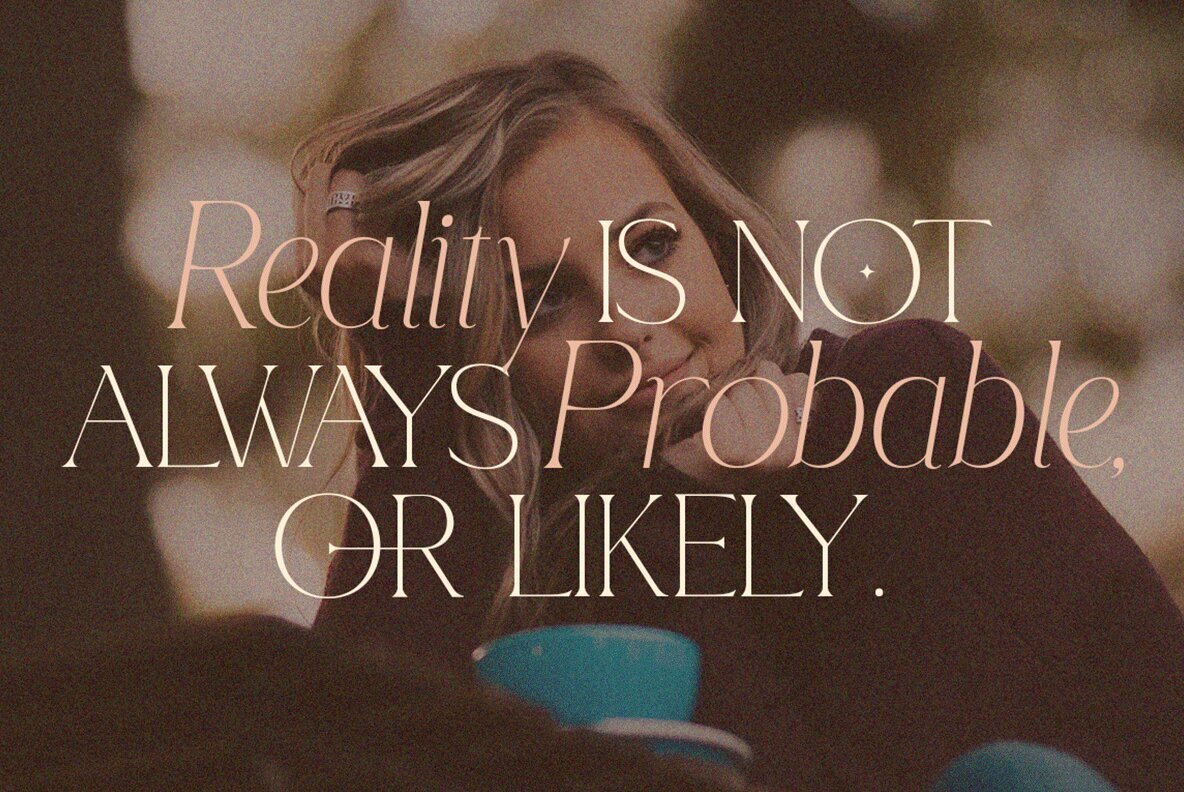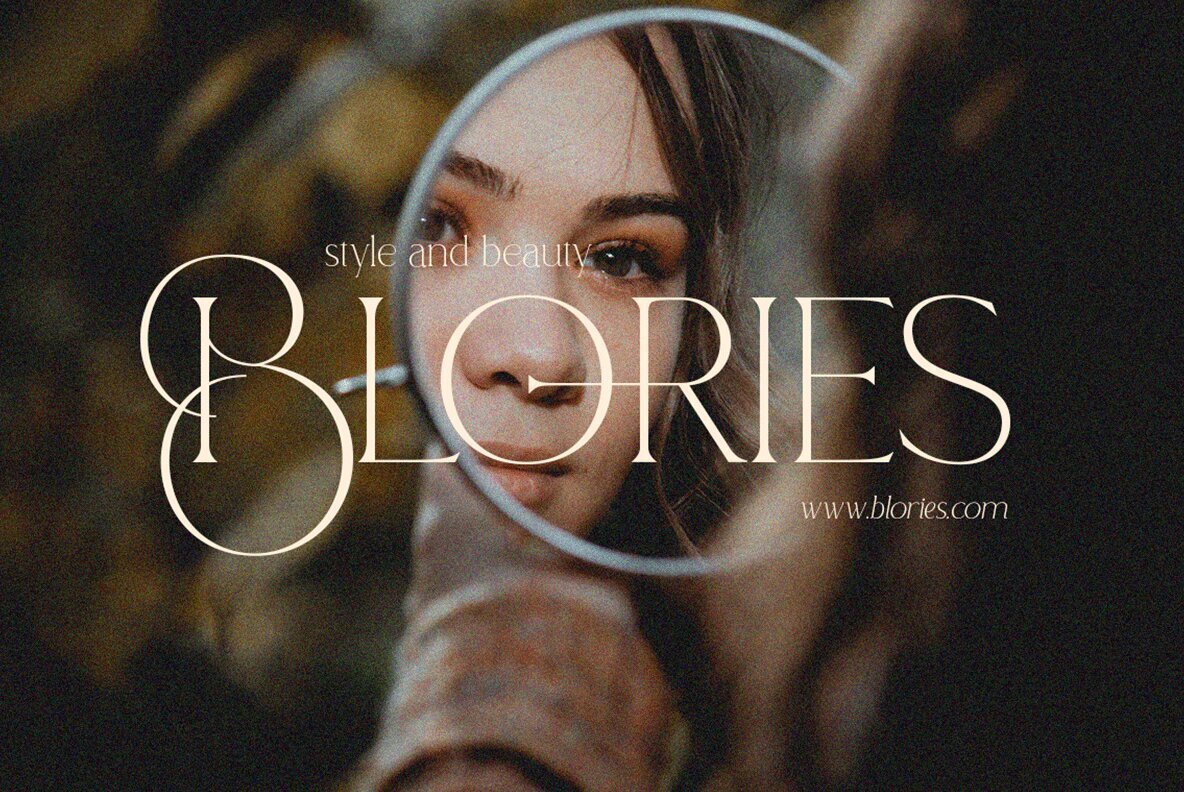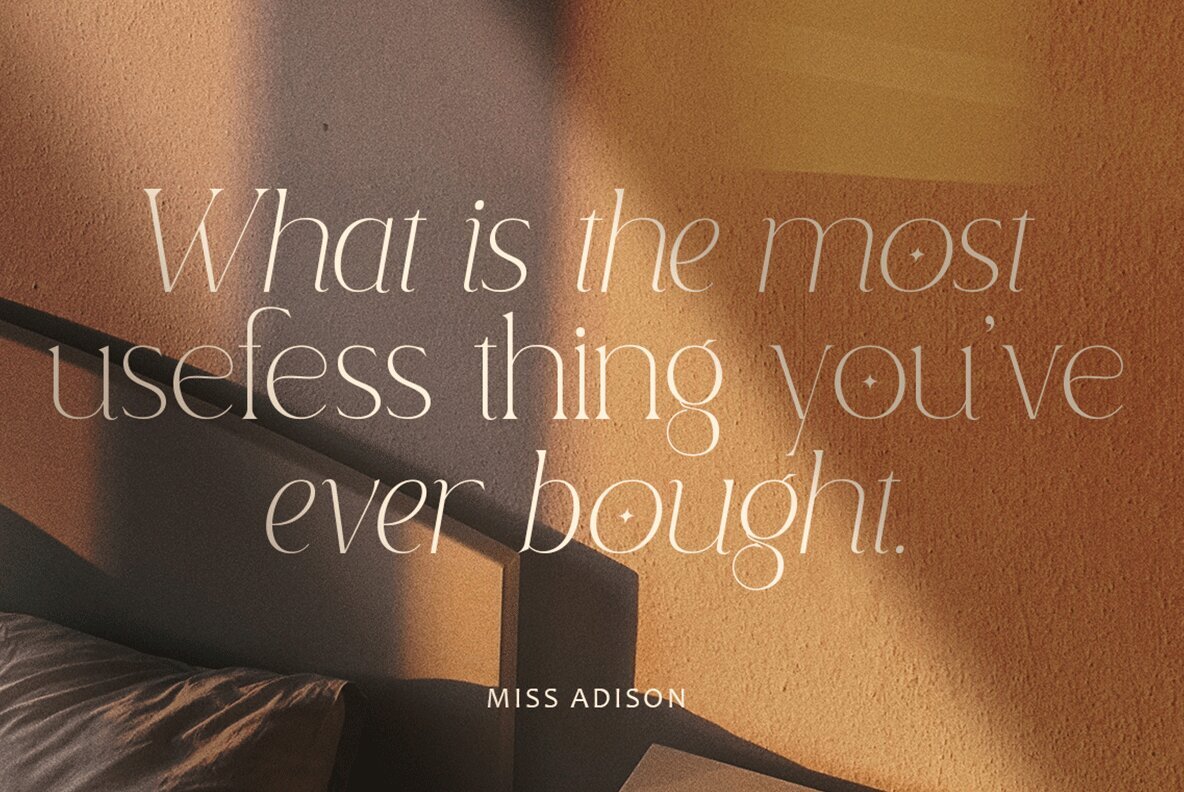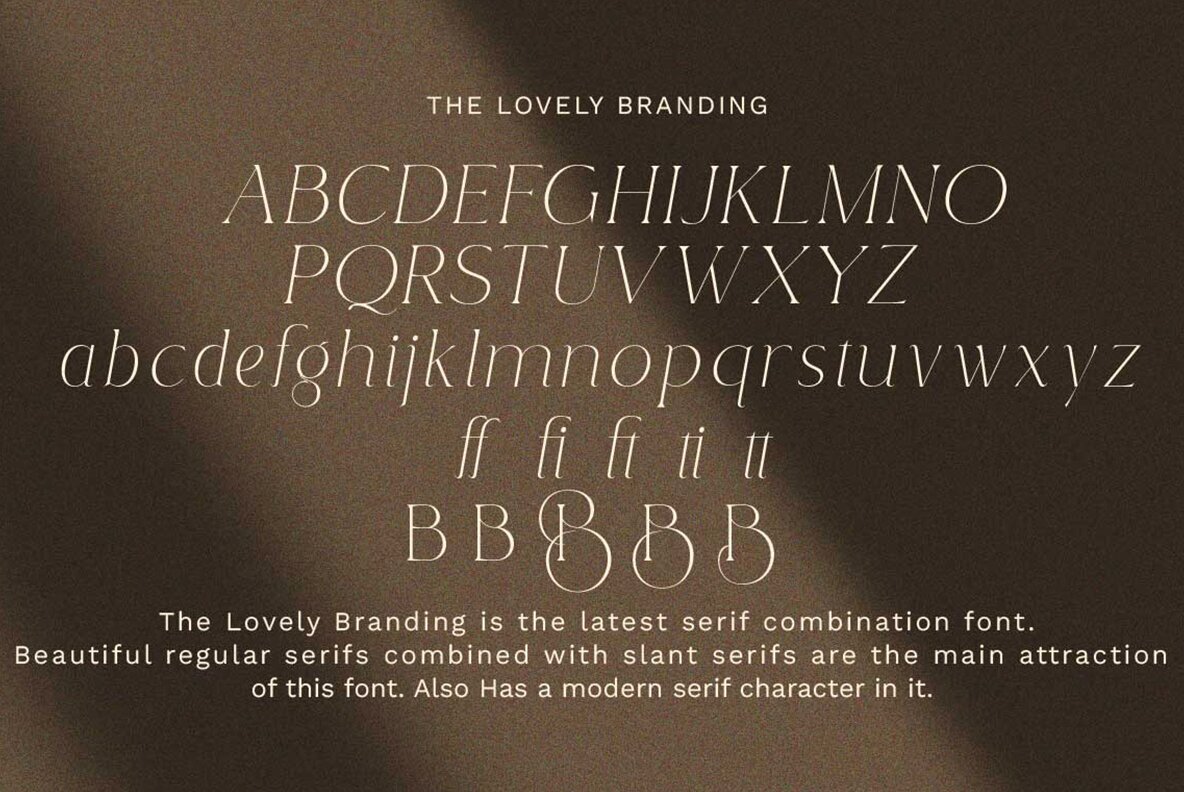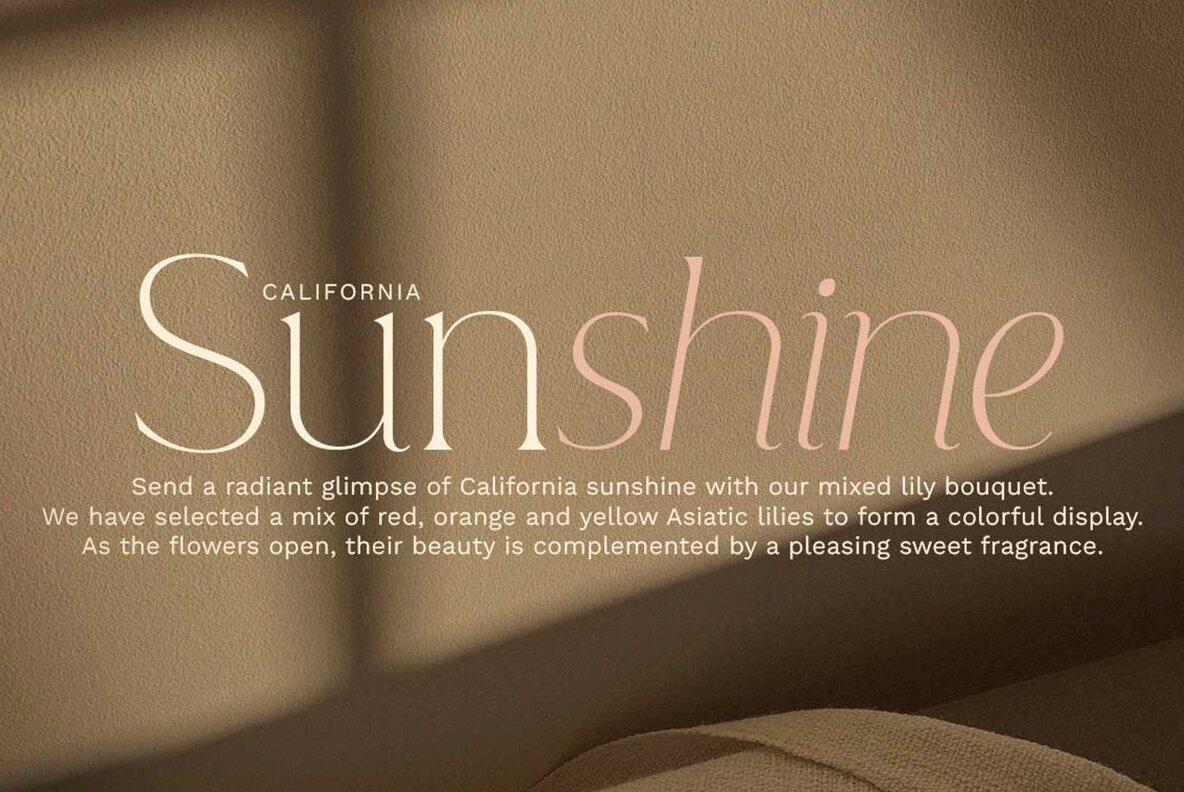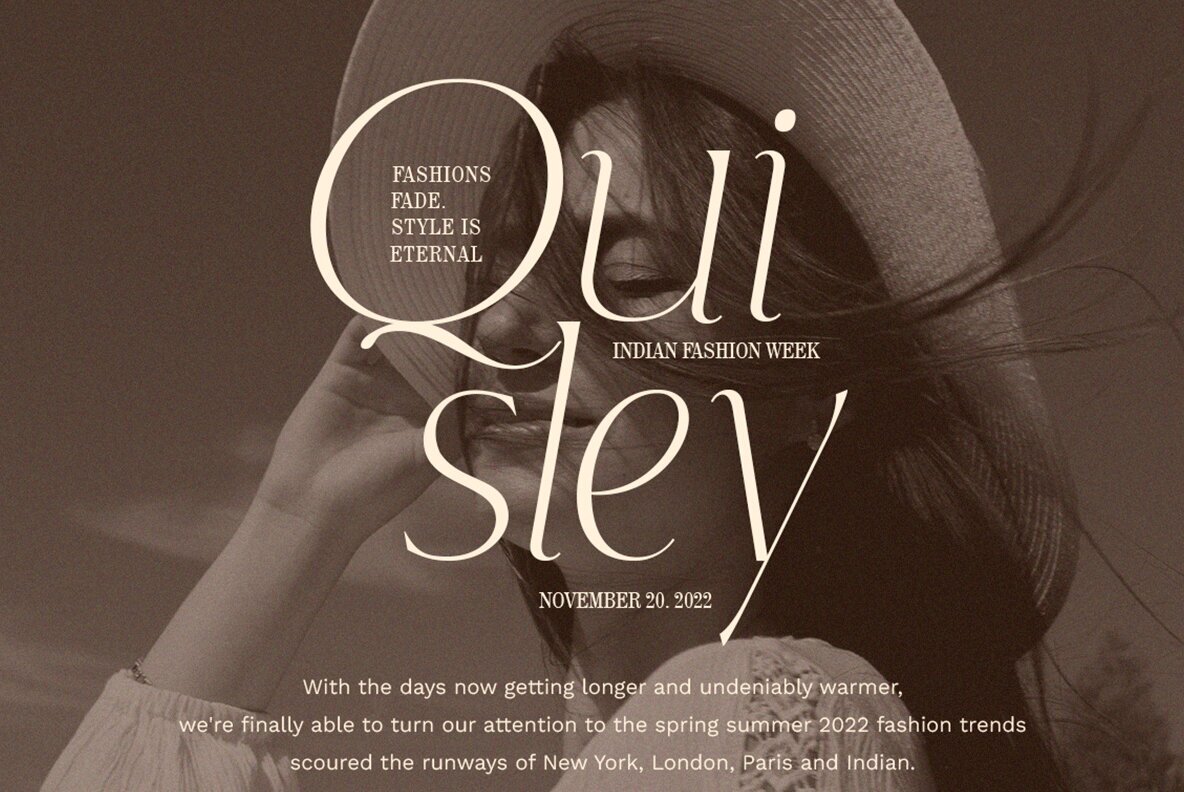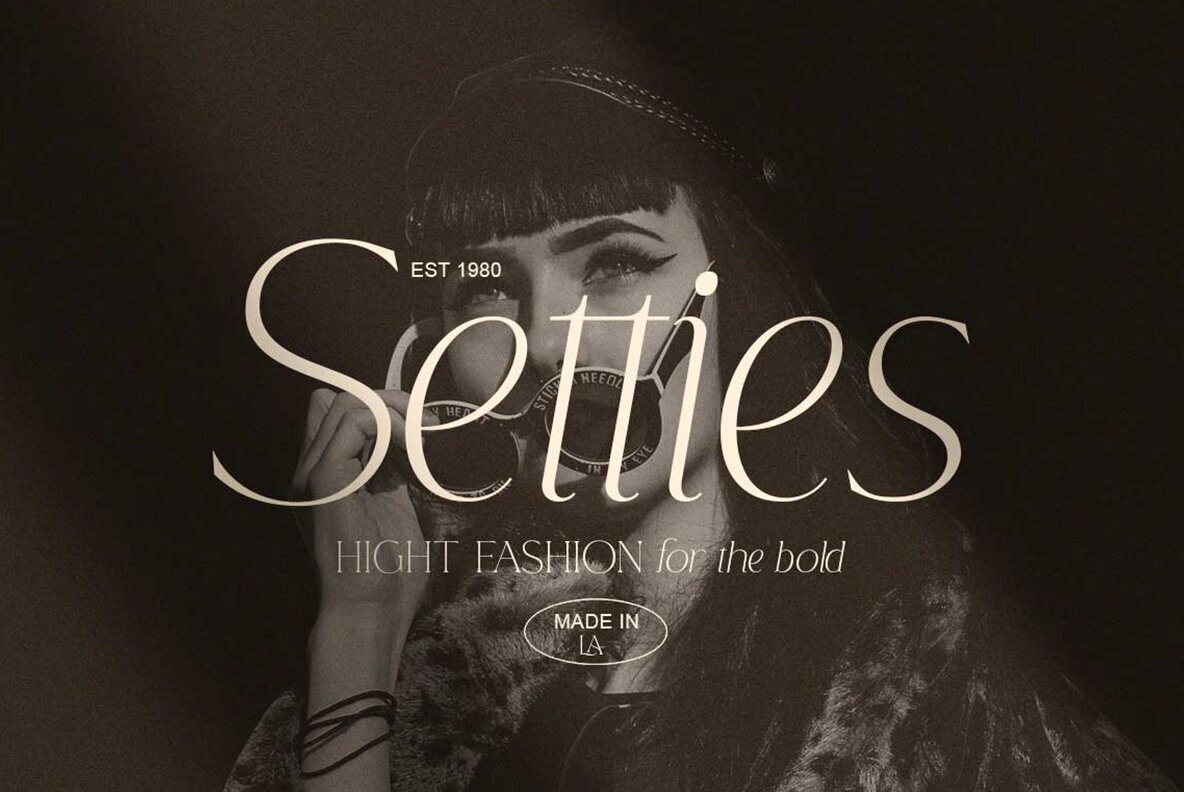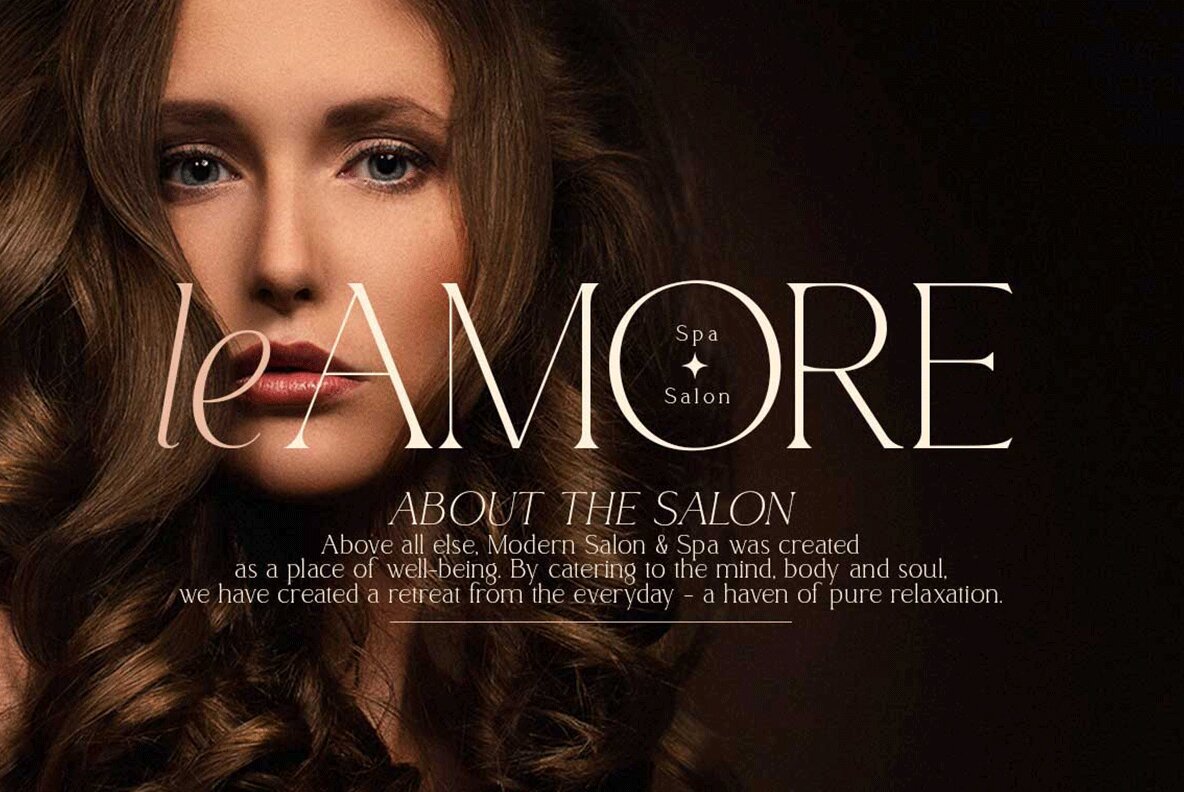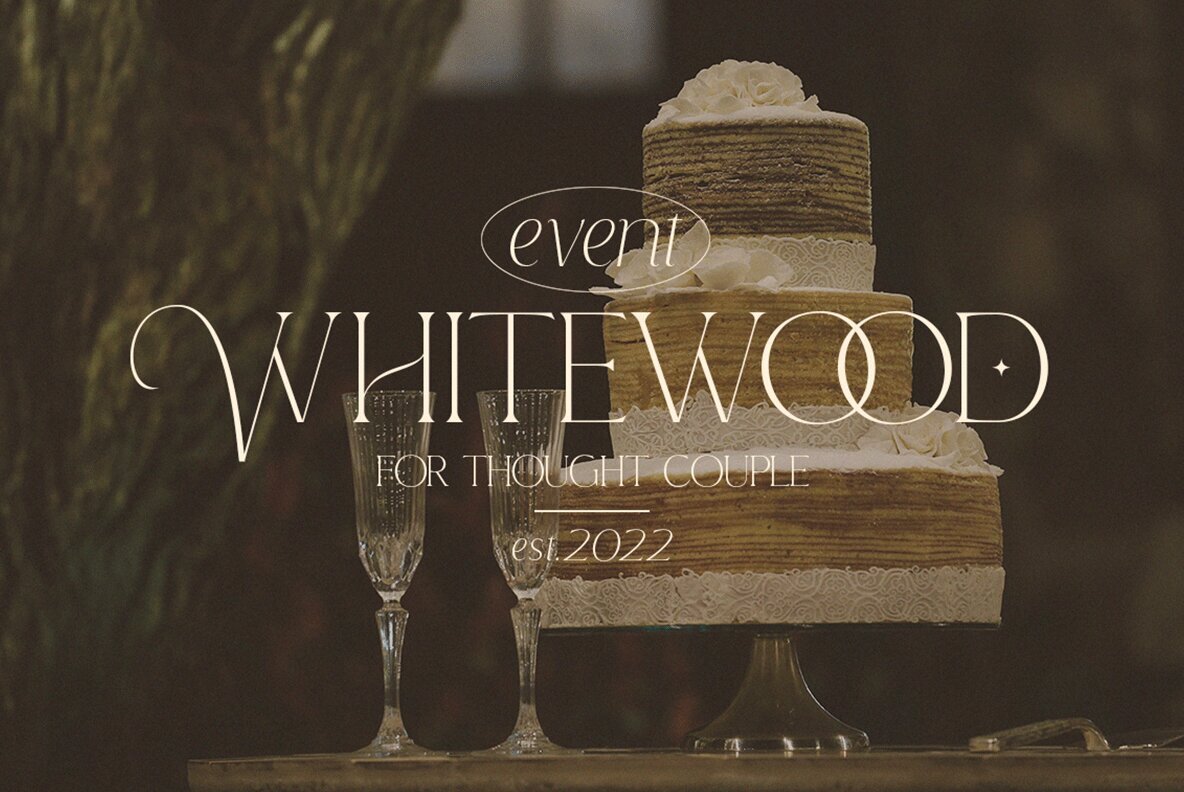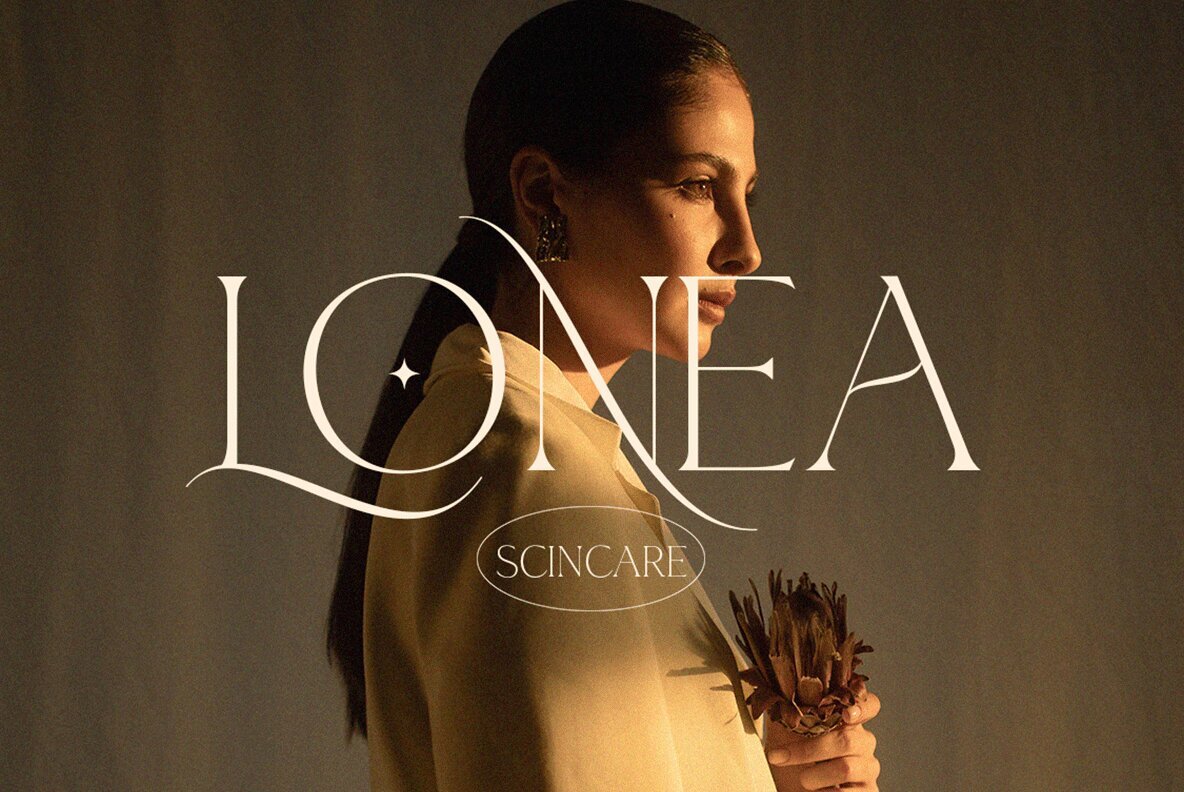
Lovely Branding Font
Lovely Branding is a distinctive serif combination font that seamlessly blends a beautiful plain serif with an italic serif to capture the viewer's attention. Its modern serif characters add a sophisticated and elegant touch, making it ideal for upscale and high-end design projects. The font’s diverse range of characters ensures versatility, allowing it to complement a variety of design styles and aesthetics.
Ideal for branding, Lovely Branding provides a refined and stylish option for crafting memorable logos, headlines, and other typography-focused elements in your designs. Its elegant features lend themselves well to projects that require a touch of luxury and class. Whether for print or digital media, this font will enhance the overall appeal and impact of any artistic creation.